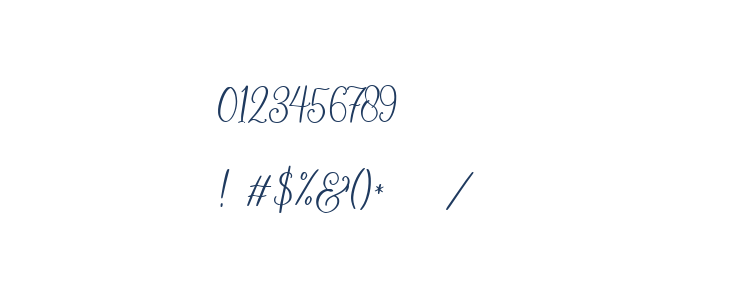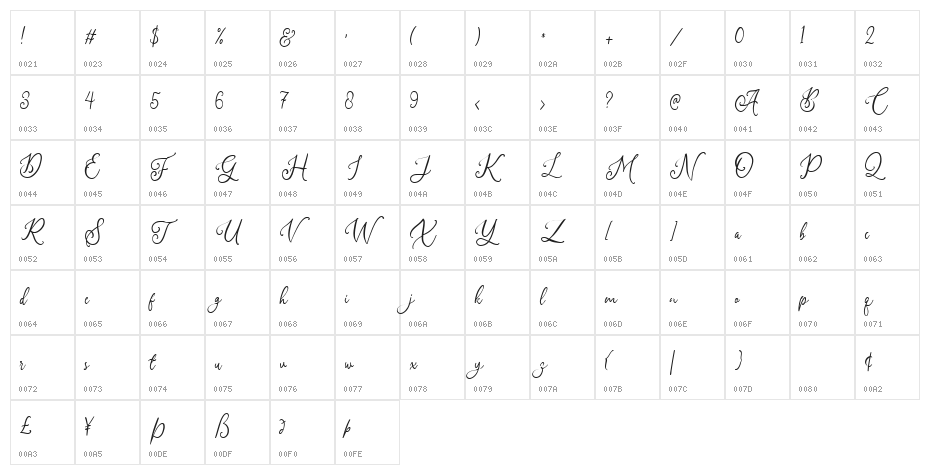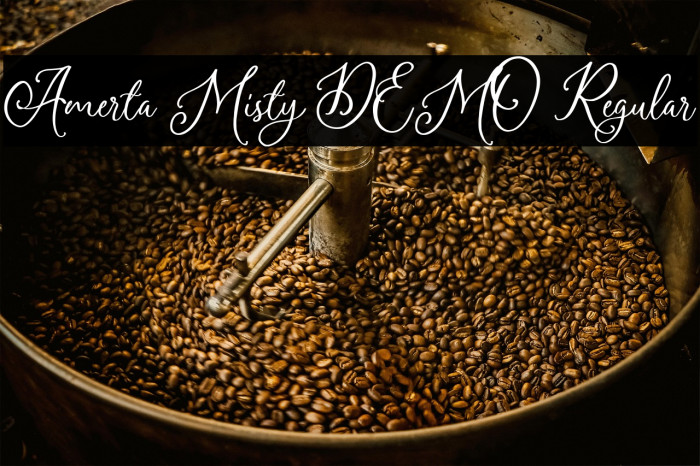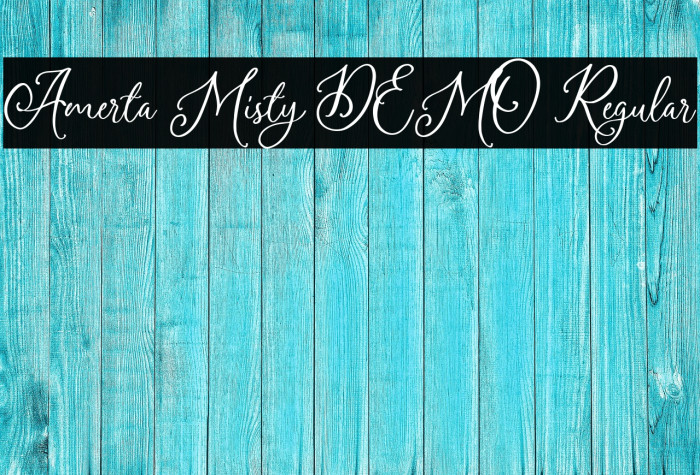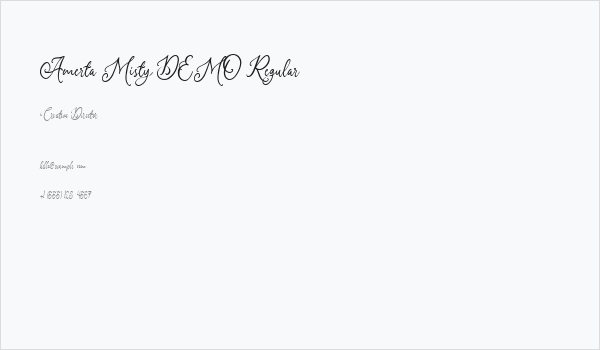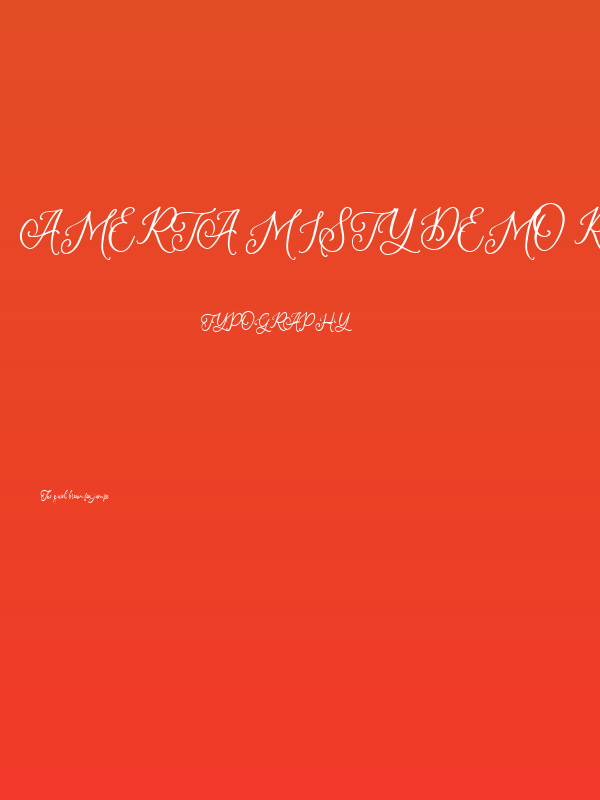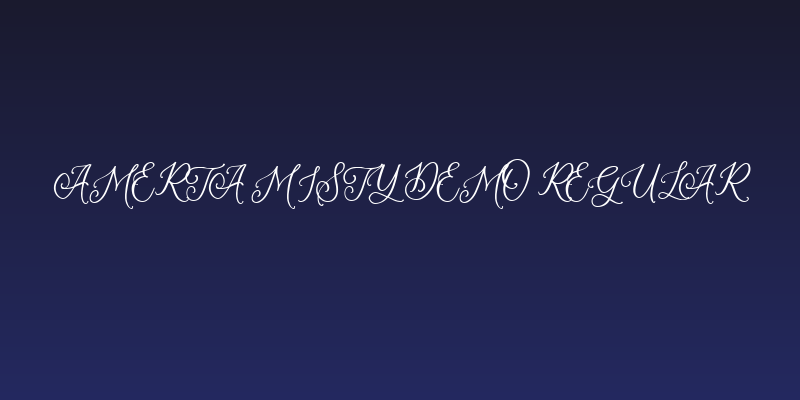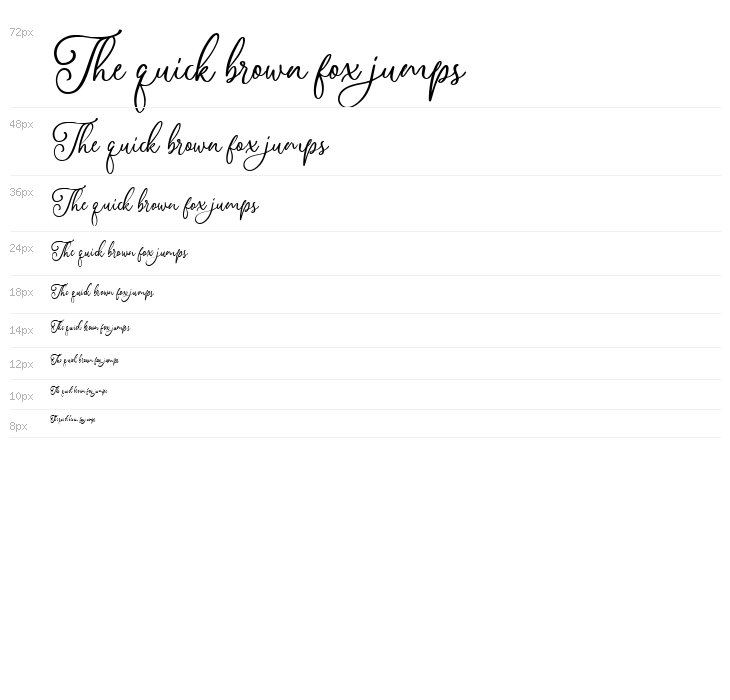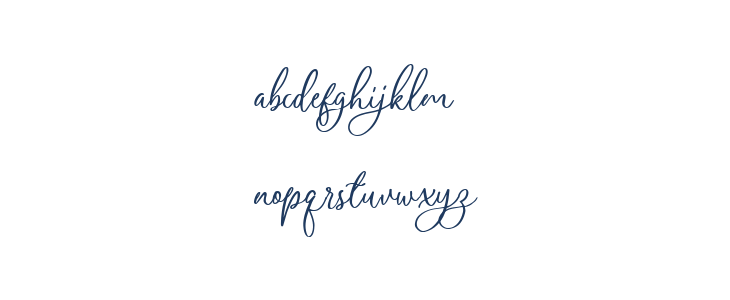
Amerta Misty DEMO Regular Font
Amerta Misty DEMO Regular Description
This elegant script font features flowing, interconnected letters with a graceful and sophisticated appearance. The uppercase characters are adorned with delicate swashes and flourishes, adding a touch of luxury and refinement. The lowercase letters maintain a smooth, cursive style that complements the uppercase, creating a harmonious and fluid look. The numerals and special characters are designed with the same attention to detail, ensuring consistency throughout the font. The overall aesthetic is both classic and modern, making it versatile for various design applications.
| Overall Style | Elegant, Classic |
| Proposed Projects | Ideal for wedding invitations, luxury branding, greeting cards, and elegant packaging designs. |